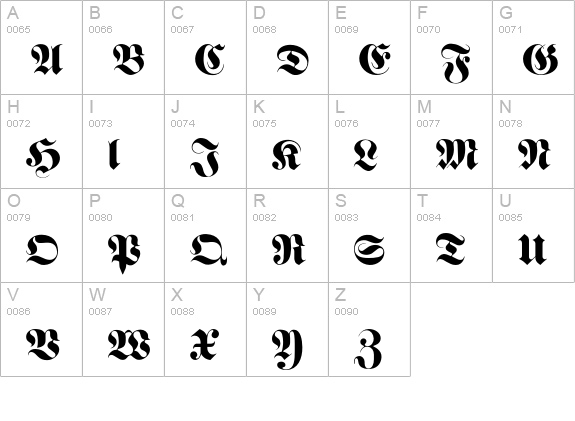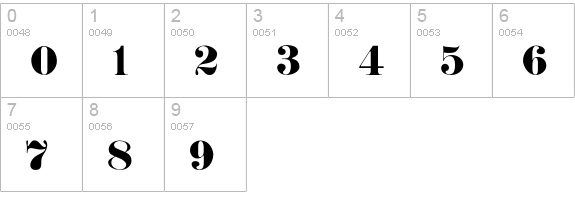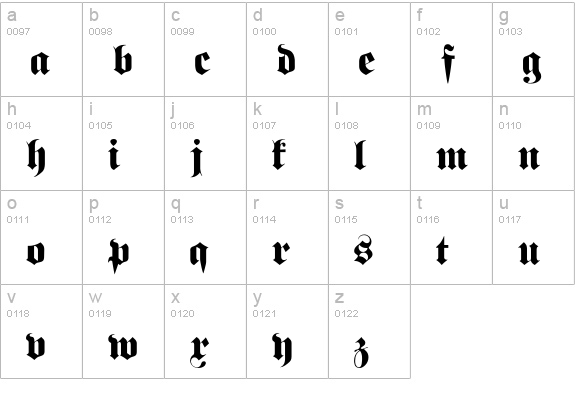
FrakturFont Font Details
FrakturFont is a stunning font that exudes timeless elegance and sophistication. With its intricate details and ornate design, this typeface is perfect for adding a touch of vintage charm to your projects. The sharp angles and bold strokes of FrakturFont make it stand out from the crowd, giving your text a unique and eye-catching appearance. What's even better is that FrakturFont is available for free download at FontsMarket.com. This means you can easily access this beautiful font without any cost, making it a great choice for designers, creatives, and anyone looking to enhance their work with a touch of classic style. Don't miss out on the opportunity to add FrakturFont to your font collection today and elevate your designs to new heights.